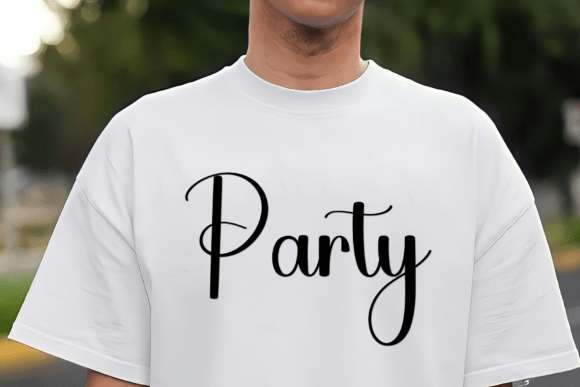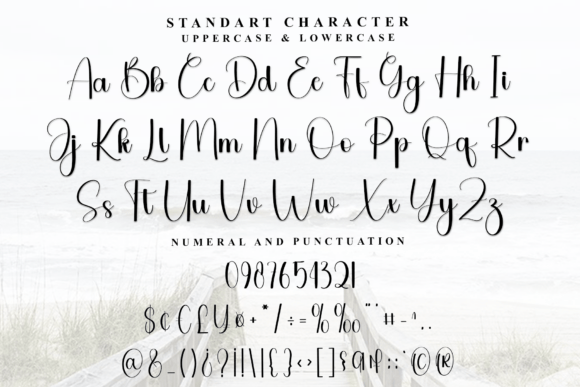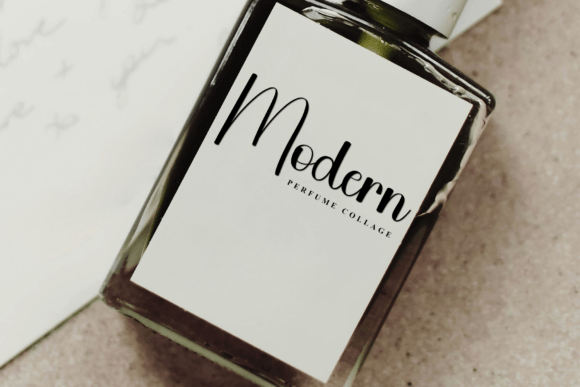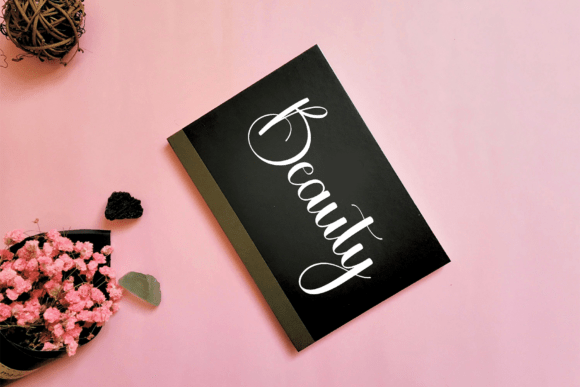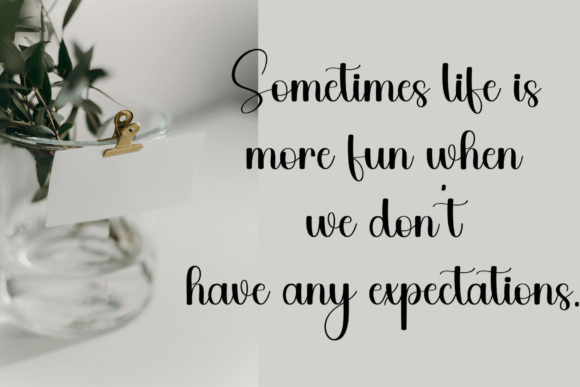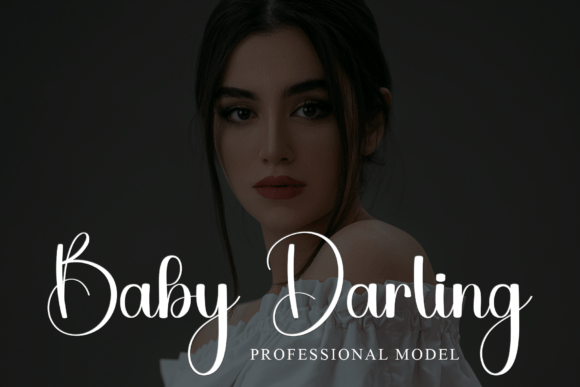
The Magic of Daily Date Font: Elevate Your Designs with Elegance
Have you ever been in the middle of a design project, and suddenly, you’re stuck on finding the perfect font? I recall a particularly frustrating experience while working on a client’s wedding invitation project. The design was almost complete, but the font just wasn’t right. That’s when I stumbled upon Daily Date Font, and it was love at first sight! ✨ In this article, I’ll share my experience with this beautiful script font, its features, and how to make the most of it in your designs.
A Personal Review of Daily Date Font
As a designer, I’m always on the lookout for fonts that can add a touch of elegance and sophistication to my projects. Daily Date Font has become a staple in my font library, and here’s why:
- ✨ Elegant and Refined: Daily Date Font boasts a beautiful, flowing script that exudes elegance and refinement.
- ✅ Highly Versatile: This font is perfect for a wide range of design projects, from Instagram posts and social media graphics to calligraphy scripts for DIY projects.
- ✅ Easy to Read: Despite its elegant appearance, Daily Date Font remains highly legible, making it perfect for both headings and body text.
However, no font is perfect, and Daily Date Font has a few minor quirks:
- 🤔 Limited Use in Small Sizes: While Daily Date Font looks stunning in larger sizes, it may not be the best choice for very small text or body copy.
- ⚠️ Occasional Kerning Issues: As with any font, you may encounter occasional kerning issues, especially when using it in combination with other fonts.
A Practical Guide to Using Daily Date Font
- Experiment with OpenType features like ligatures and stylistic alternates to add more flair to your text.
- Access glyphs and OpenType features through the Character panel to customize your text.
- Although Word might not support all OpenType features, you can still use the font’s basic elegance and charm.
The Story Behind Daily Date Font
Daily Date Font was created with a passion for elegance and a love for script fonts. The designer aimed to craft a font that would be both beautiful and versatile, suitable for a wide range of creative projects. Inspired by classic calligraphy and modern typography, Daily Date Font brings a touch of sophistication to any design.
| What makes Daily Date Font special? | Daily Date Font stands out for its elegant and refined appearance, making it perfect for designs that require a touch of sophistication. |
| Is Daily Date Font difficult to read? | No, Daily Date Font is designed to be elegant while still being legible. It’s suitable for both headings and body text. |
Daily Date Font is a beautiful addition to any design project, offering elegance, versatility, and charm. Whether you’re a designer, crafter, or hobbyist, this font is sure to inspire your creativity and elevate your designs.